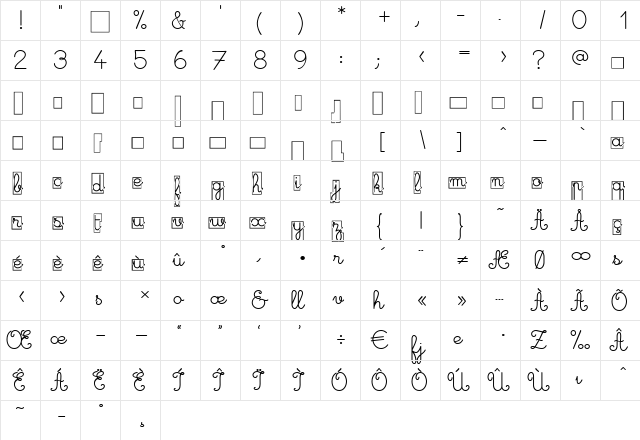
Maternellecolor cursive case Regular
Design Context for Maternellecolor cursive case Typeface
Maternellecolor cursive case brings a calligraphic fluidity to the page — its connecting strokes and expressive curves give it an unmistakably human quality.
Font Pairing: Combine Maternellecolor cursive case with a simple geometric sans for maximum contrast — the tension between flowing curves and clean structure is a classic typographic pairing.
Pro Tip: Use Maternellecolor cursive case for short runs of text — names, titles, or taglines. Extended body copy in script faces tires the eye quickly.